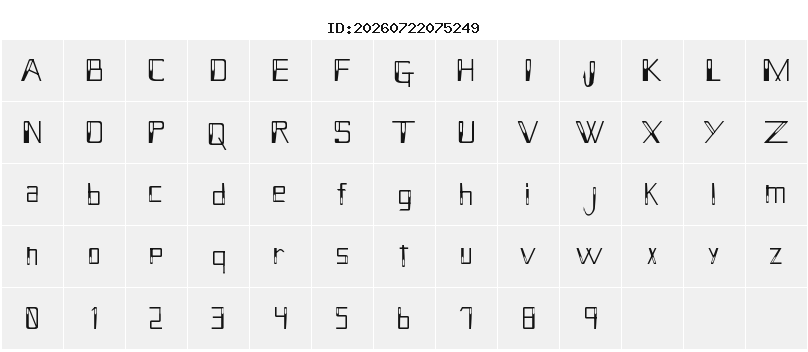
• Font Name: Holitter Hollow
• Designer: Holitter Studios
Holitter Hollow.ttf is a modern, elegant sans-serif font designed for ultimate readability and visual harmony. Perfect for branding, headlines, web design, and print materials.